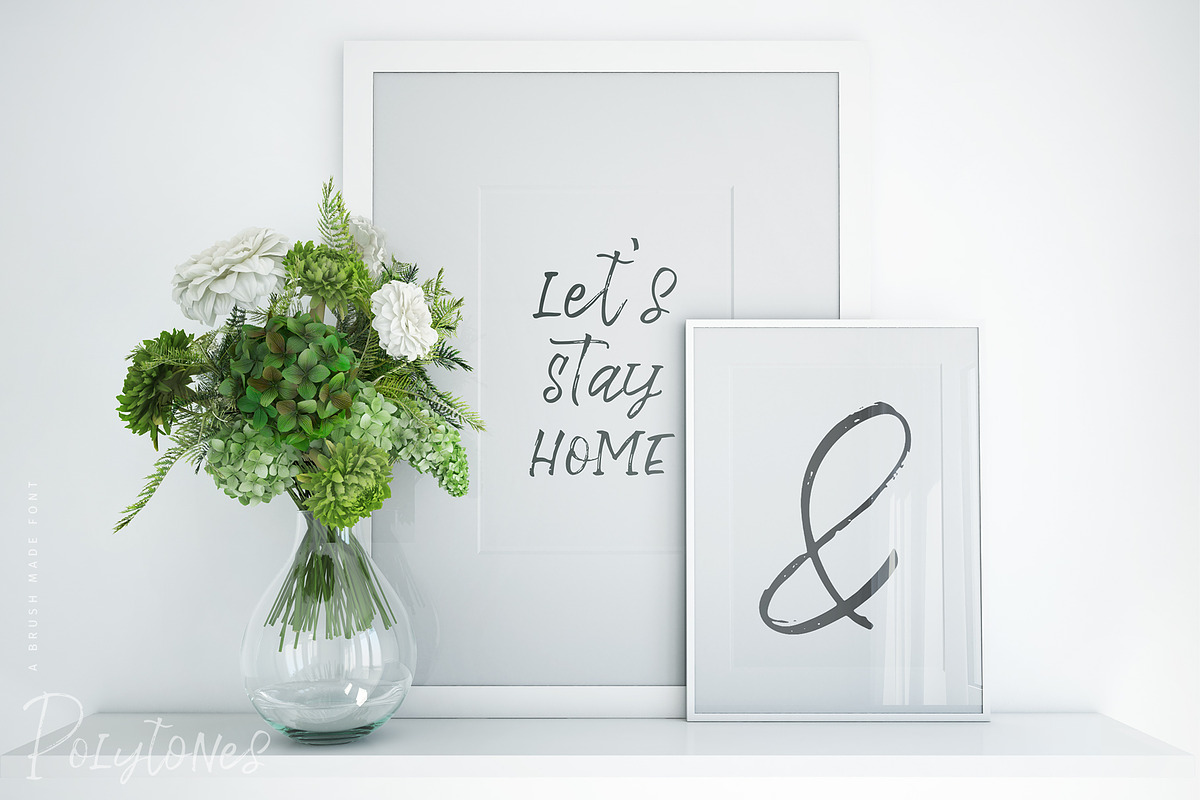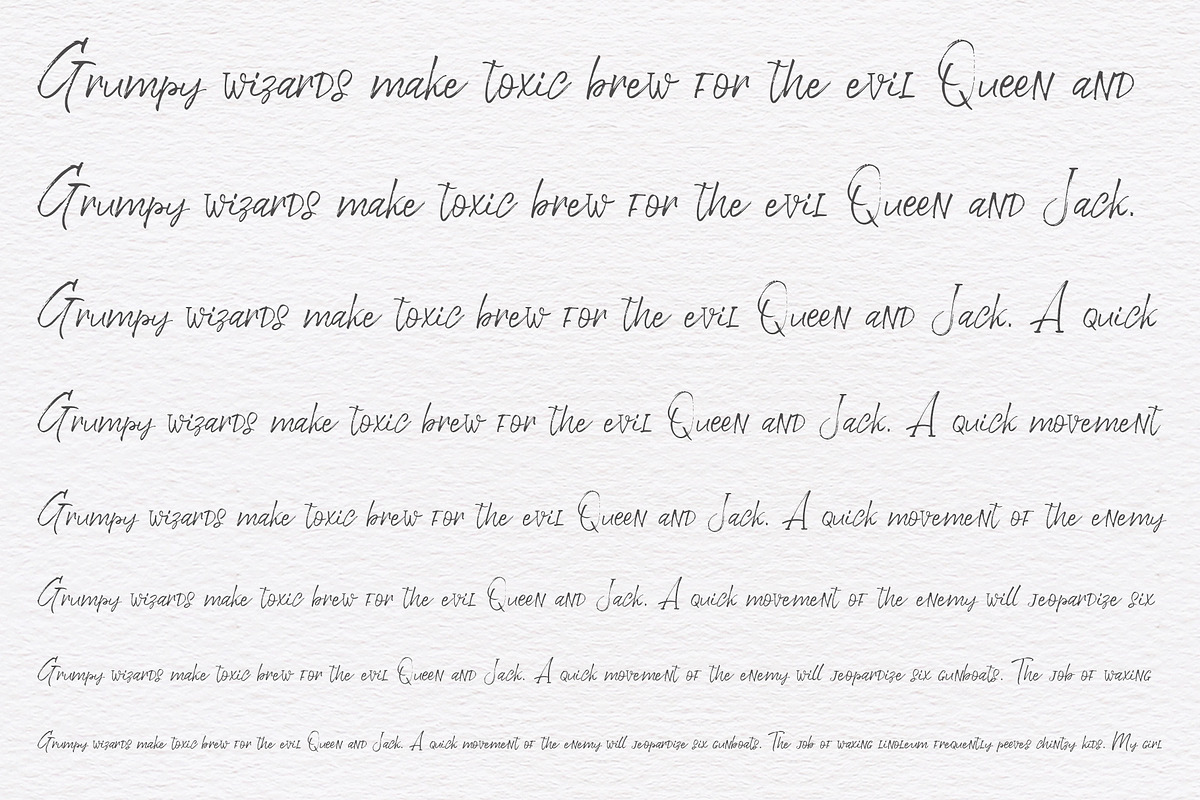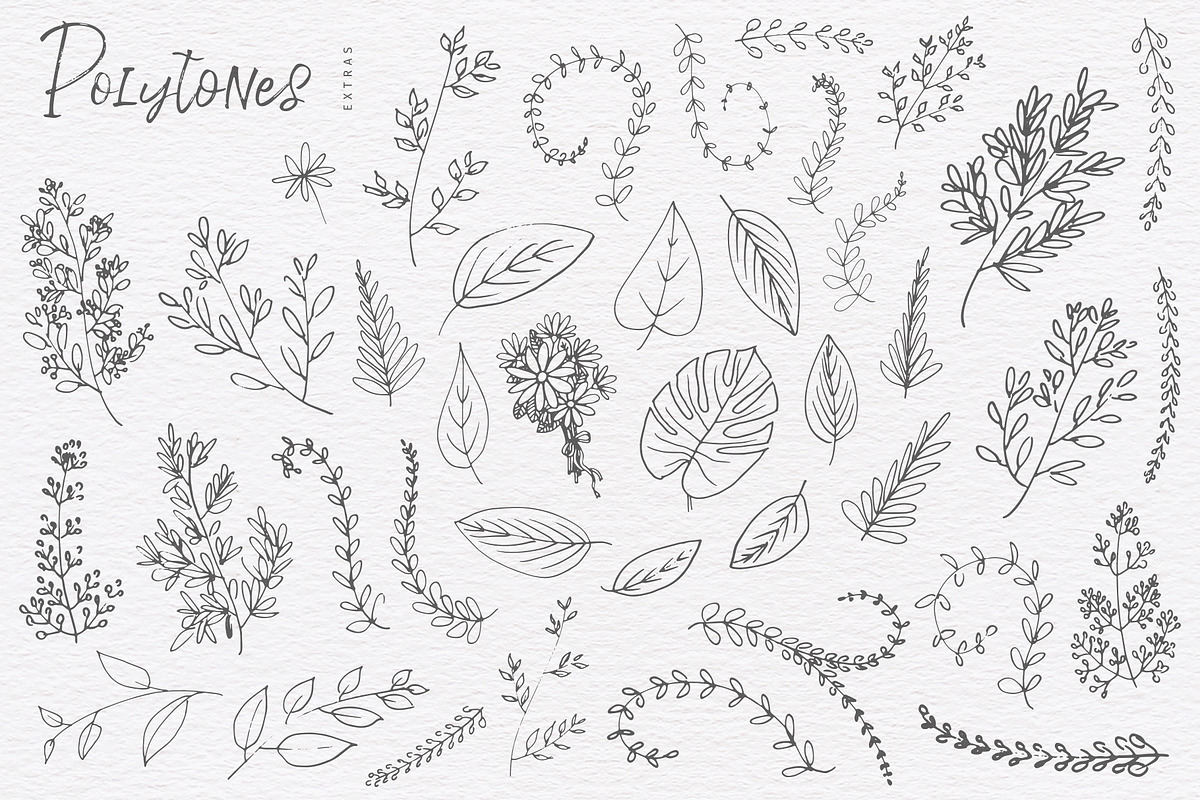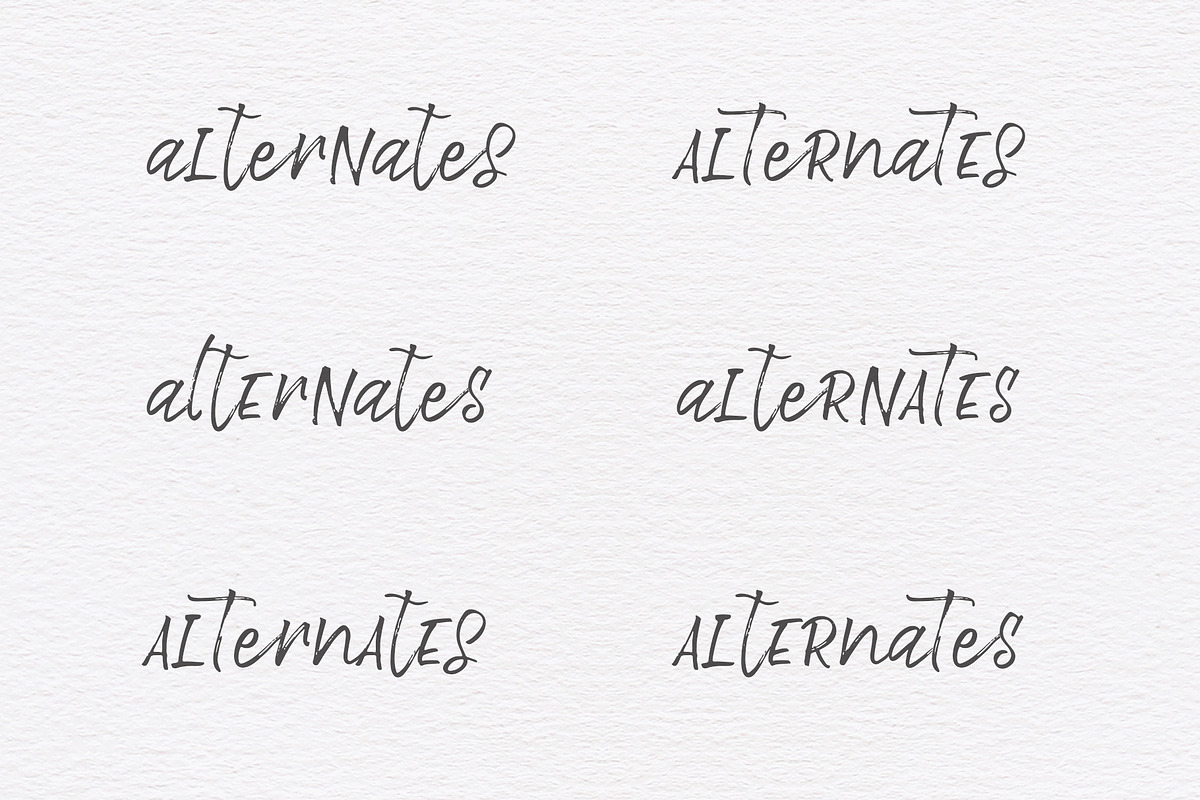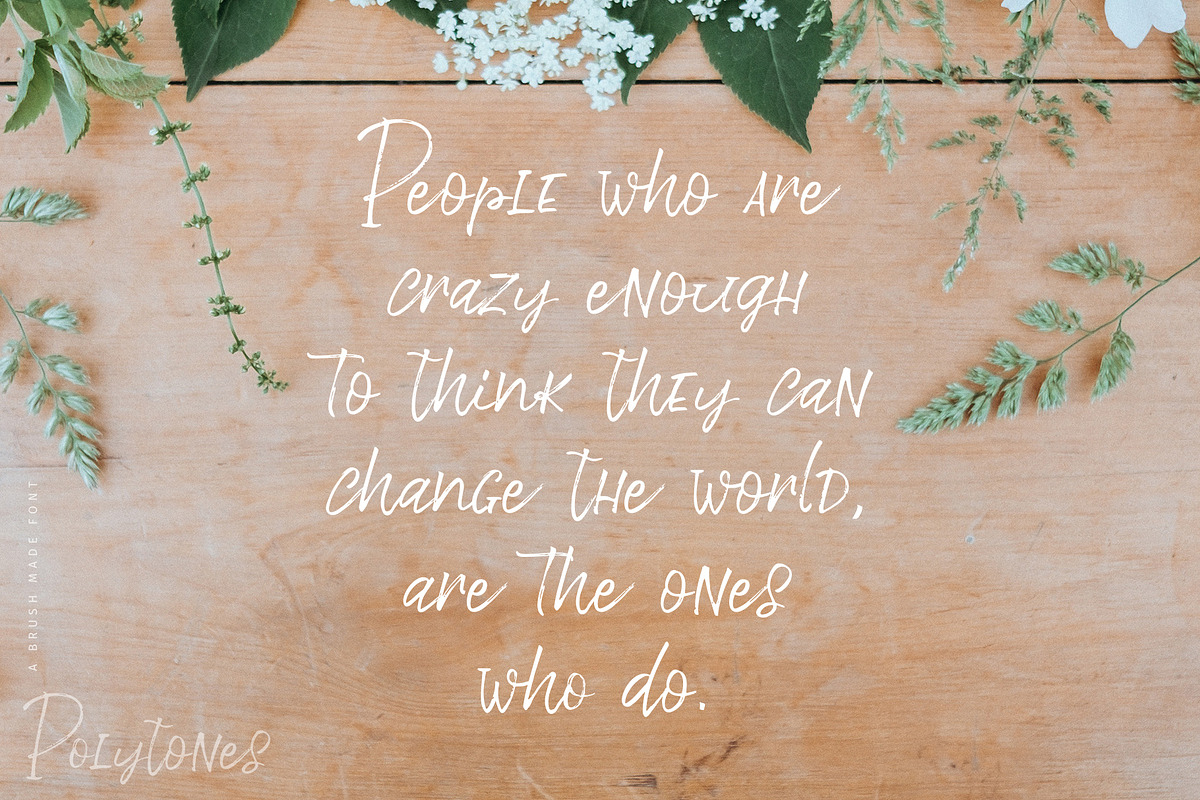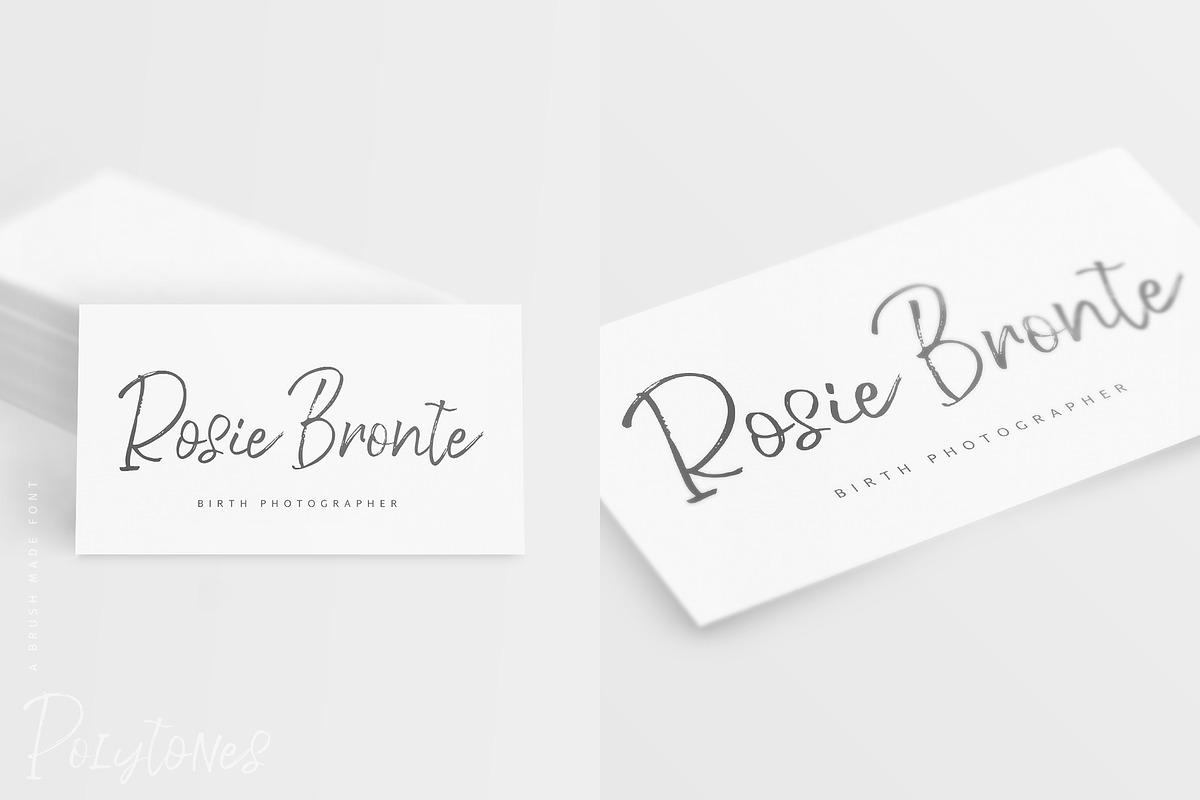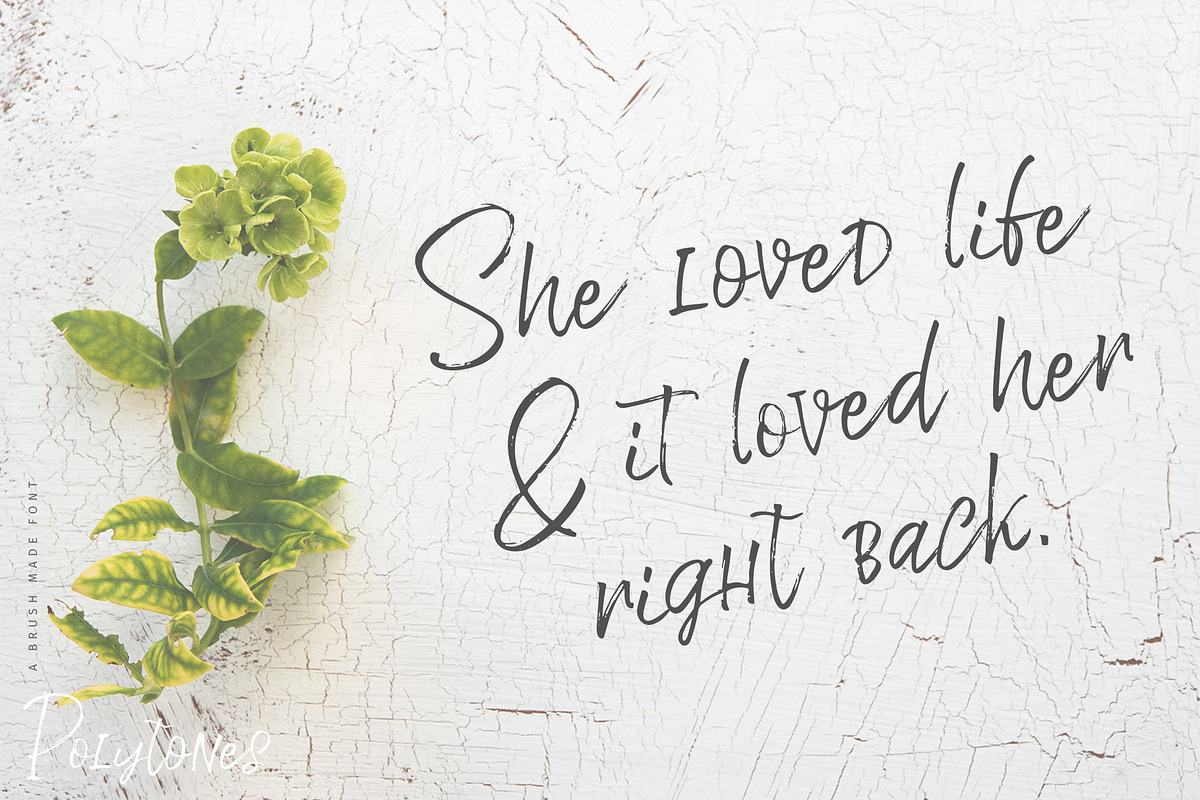
Polytones | A Brush Made Font
Polytones is a stylish font with a unique look that is achieved by a thoughtful blend of uppercase & lowercase letters. Combined with it’s texture & brush strokes, Polytones has an intriguing, easy-going flow that not only catches attention but maintains it.
Polytones has a set of lowercase alternate letters that makes it super easy to customize your designs and achieve the ‘uniquely hand made’ look.
Polytones comes with EXTRAS! A collection of vector floral elements made by brush pen come in handy when you need that delicate hand made look.